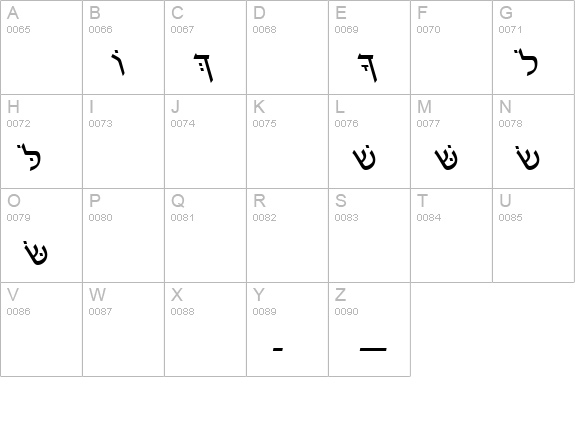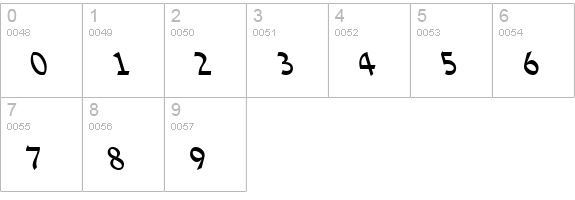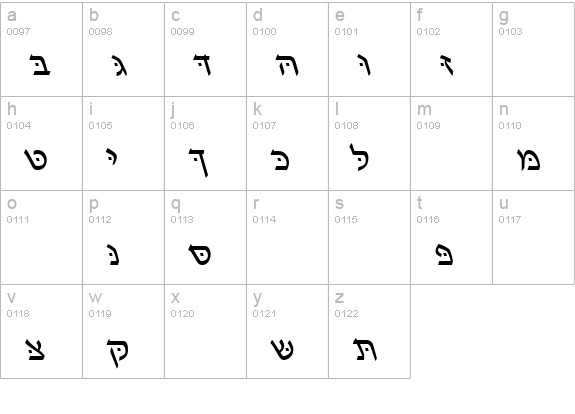
David Backslanted Italic Font Details
David Backslanted Italic is a distinctive, italic variant in the David typeface family \xE2\x80\x94 well suited to design and typography projects.
Introducing David Backslanted Italic font, a modern and stylish typeface that exudes elegance and sophistication. This unique font features a subtle slant and italicized design, adding a touch of flair to any text it adorns. The David Backslanted Italic font is perfect for creating eye-catching headlines, elegant invitations, and stylish branding materials. What sets this font apart is not only its sleek design but also its versatility. Whether you're designing a wedding invitation or a fashion magazine layout, the David Backslanted Italic font will elevate your work to new heights. Its clean lines and distinctive slant make it a standout choice for any project that requires a touch of sophistication. Best of all, the David Backslanted Italic font is available for free download at FontsMarket.com. That's right, you can elevate your designs with this stunning font without breaking the bank. Don't miss out on the opportunity to add this versatile and stylish font to your collection. Download David Backslanted Italic font today and start creating stunning designs that will leave a lasting impression.